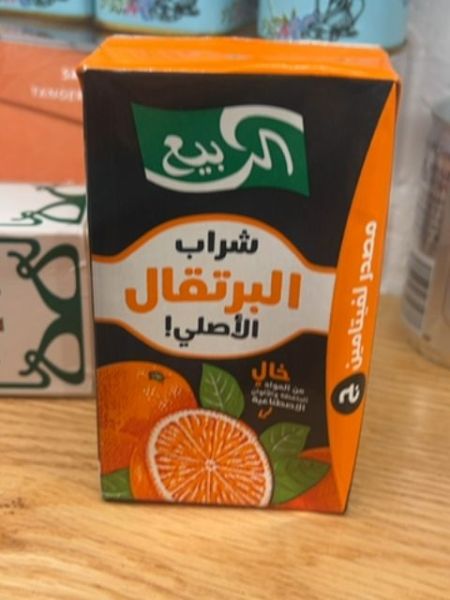
Original Orange Juice
The typography on the packaging uses bold Arabic script, which stands out against the colorful background. The script is accented with a modern sans-serif style, enhancing readability. The use of contrasting colors in the text highlights the product's natural appeal.